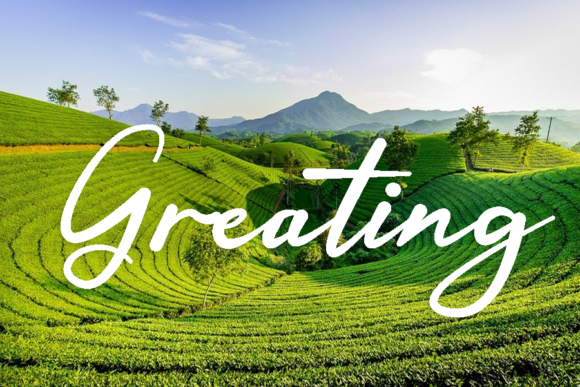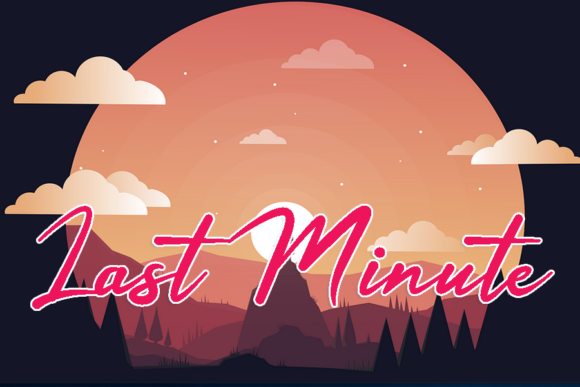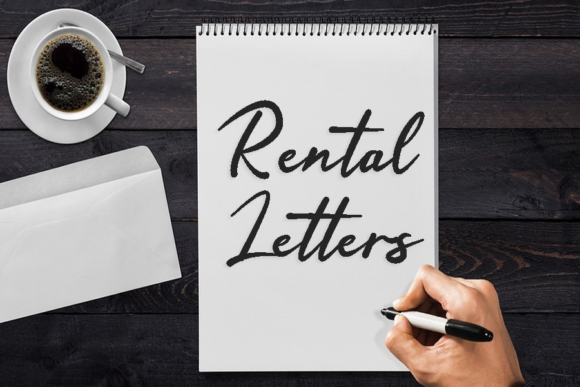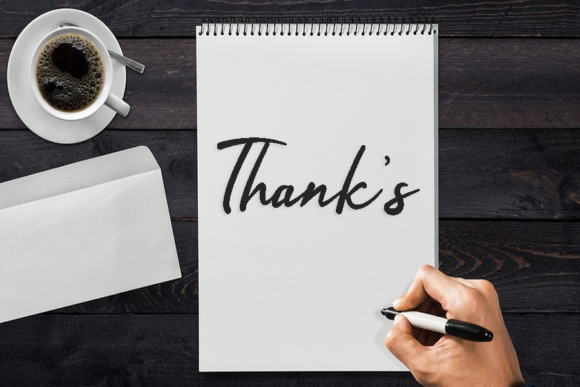
Introducing Almond Tea Font: The Perfect Addition to Your Typography Collection
Are you a designer or crafter looking for a unique and captivating font to elevate your creative projects? Look no further than Almond Tea Font, a beautiful handwritten script font that is sure to add a touch of romance and whimsy to your designs. In this article, we’ll take a closer look at the features and benefits of Almond Tea Font, and explore how it can be used to enhance your next project.
A Versatile and Enchanting Font
Almond Tea Font is a versatile and enchanting handwritten font that is perfect for a wide range of applications. Whether you’re designing greeting cards, headlines, or social media graphics, this font is guaranteed to add a romantic feel to your project. With its flowing script and delicate lines, Almond Tea Font is sure to capture the attention of your audience and leave a lasting impression.
Key Features of Almond Tea Font
- Handwritten Script Font: Almond Tea Font is a beautifully crafted handwritten script font that features flowing connections and delicate lines.
- Versatile: This font is perfect for a wide range of applications, from greeting cards to headlines, social media graphics, and more.
- Romantic Feel: Almond Tea Font is guaranteed to add a romantic feel to your project, making it perfect for wedding invitations, Valentine’s Day cards, and other special occasions.
- Easily Readable: Despite its delicate lines and flowing script, Almond Tea Font is easily readable, making it perfect for both digital and print applications.
Using Almond Tea Font in Your Designs
Almond Tea Font is incredibly easy to use and can be incorporated into your designs in a variety of ways. Here are a few ideas to get you started:
- Greeting Cards: Use Almond Tea Font to create beautiful and unique greeting cards for special occasions like weddings, anniversaries, and Valentine’s Day.
- Headlines: Add a touch of elegance and sophistication to your headlines with Almond Tea Font.
- Social Media Graphics: Use Almond Tea Font to create eye-catching social media graphics that are sure to capture the attention of your audience.
- Wedding Invitations: Make your wedding invitations truly special with Almond Tea Font.
Why Choose Almond Tea Font?
With so many fonts to choose from, why should you choose Almond Tea Font? Here are just a few reasons:
- Unique and Eye-Catching: Almond Tea Font is a unique and eye-catching font that is sure to set your designs apart from the crowd.
- High-Quality: This font is crafted with high-quality lines and connections, ensuring that it looks great in any application.
- Easy to Read: Despite its delicate lines and flowing script, Almond Tea Font is easily readable, making it perfect for both digital and print applications.
- Versatile: Almond Tea Font can be used in a wide range of applications, from greeting cards to headlines and social media graphics.
In conclusion, Almond Tea Font is a beautiful and versatile handwritten script font that is perfect for designers and crafters looking to add a touch of romance and whimsy to their creative projects. With its flowing script, delicate lines, and easily readable text, Almond Tea Font is sure to capture the attention of your audience and leave a lasting impression. Whether you’re designing greeting cards, headlines, or social media graphics, Almond Tea Font is the perfect addition to your typography collection.